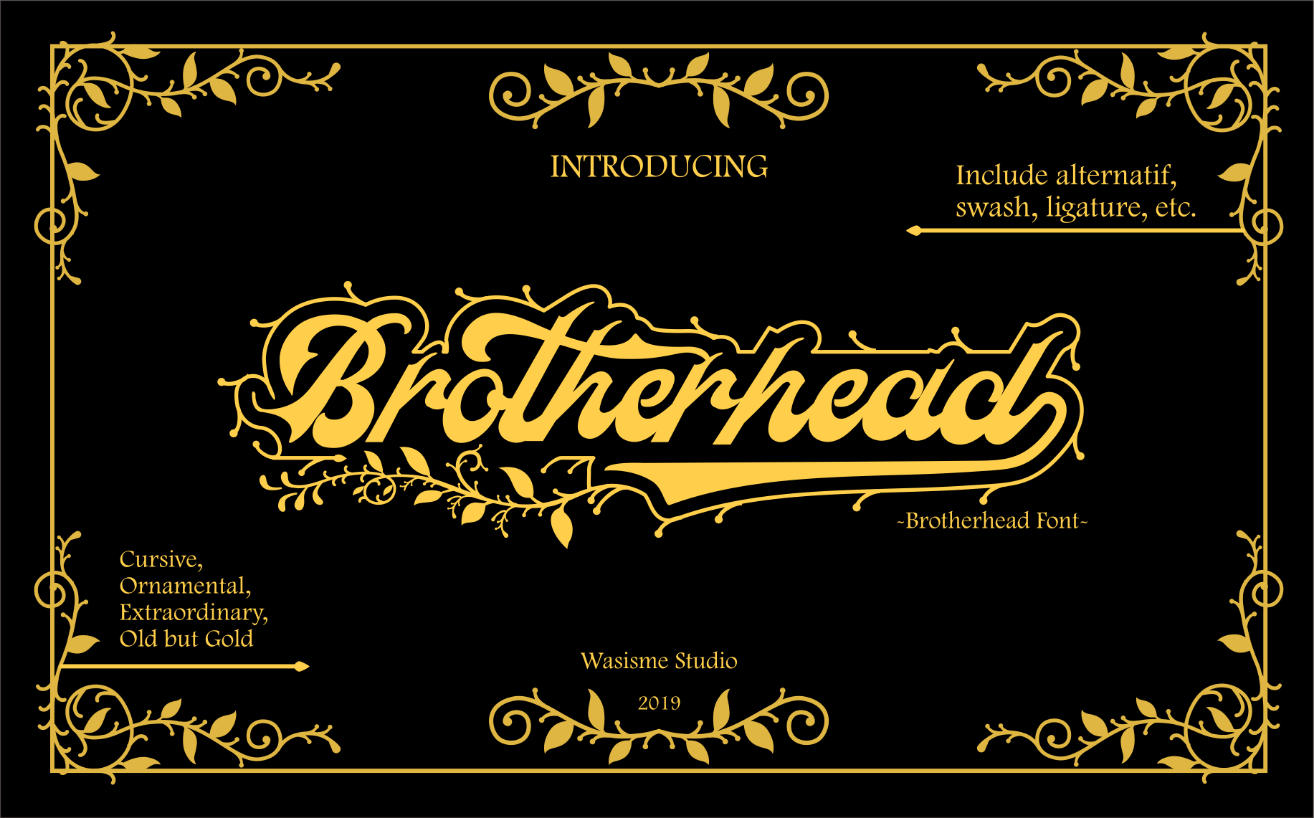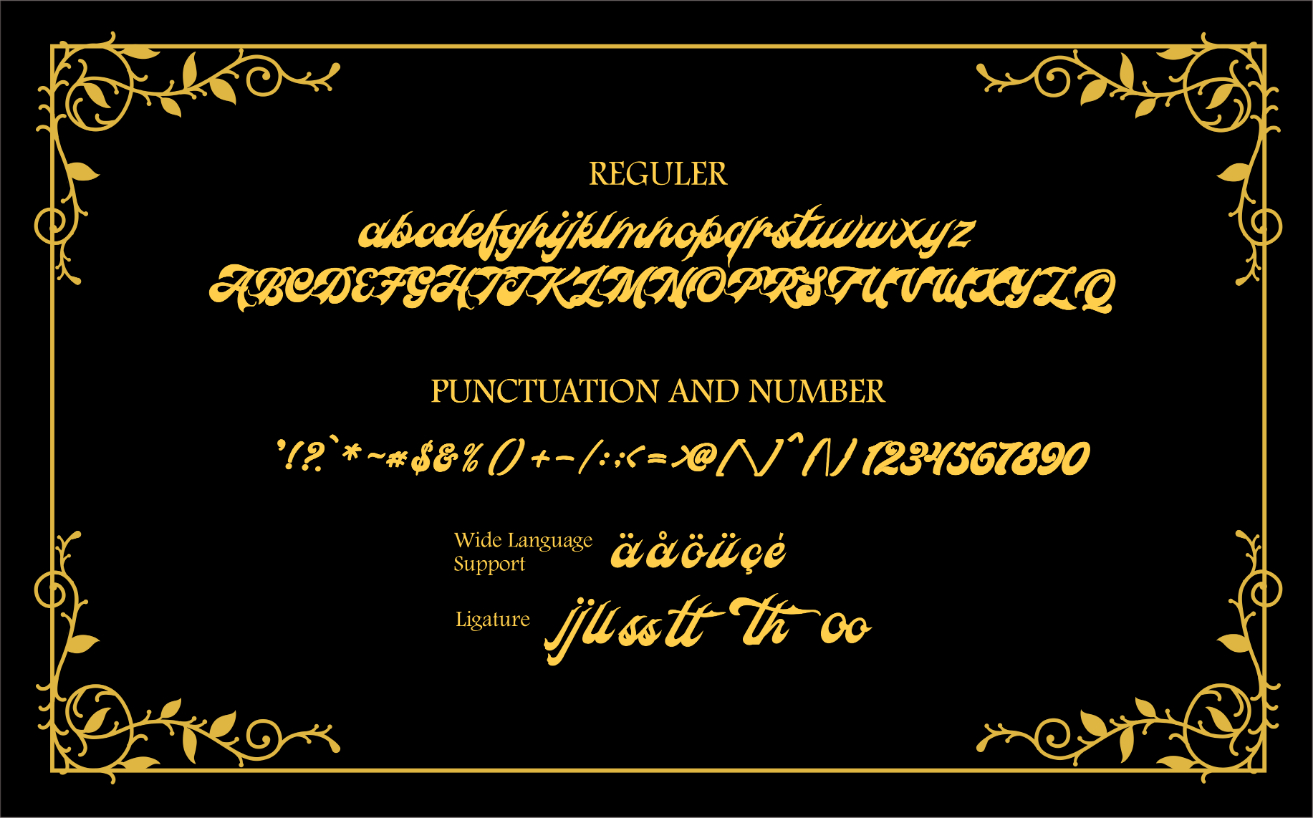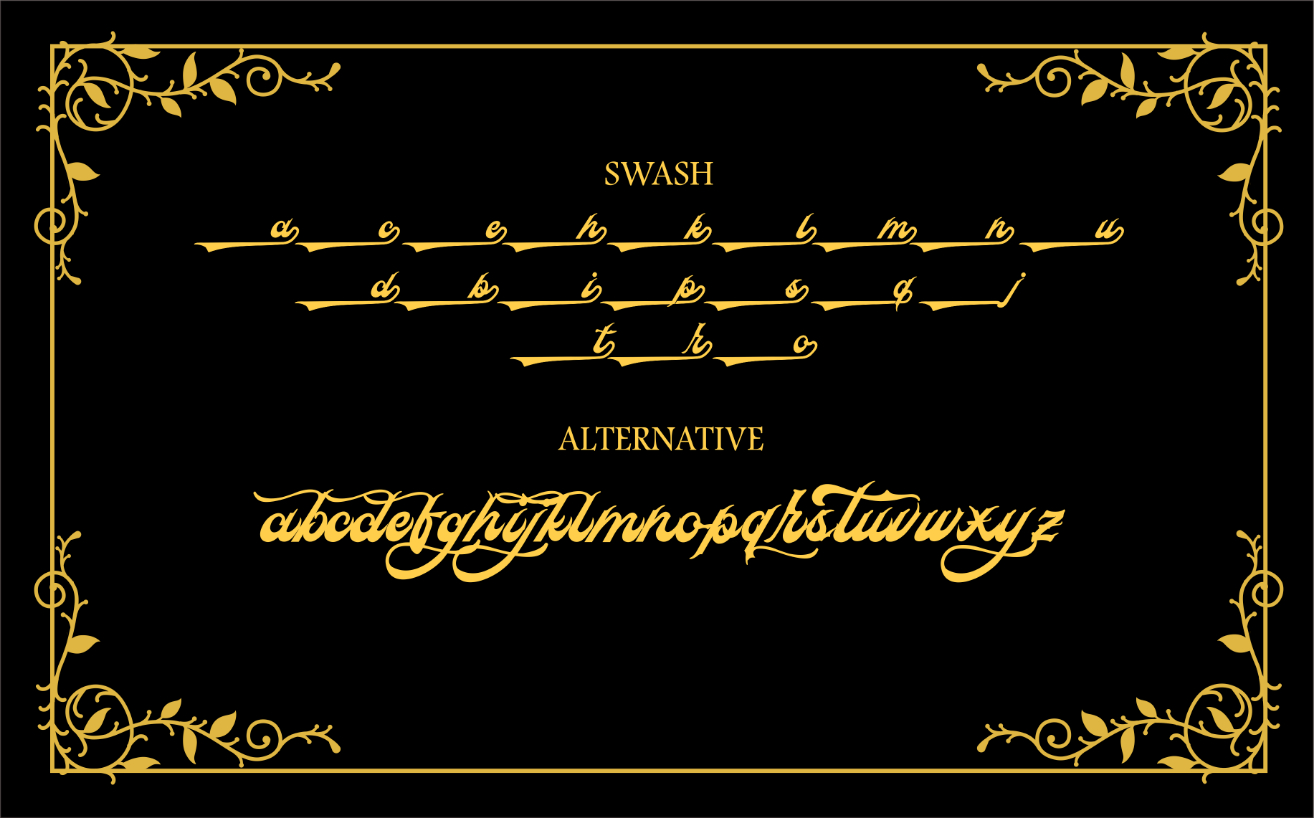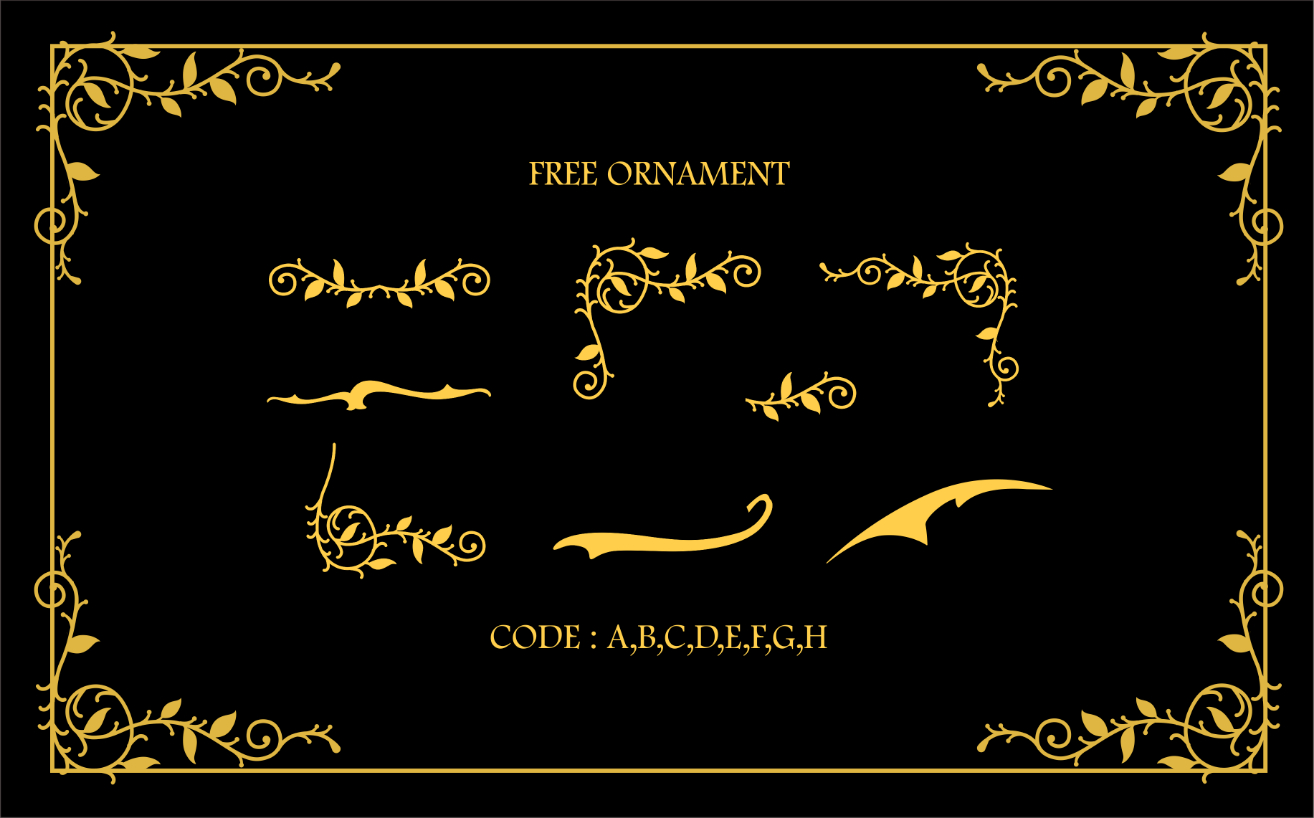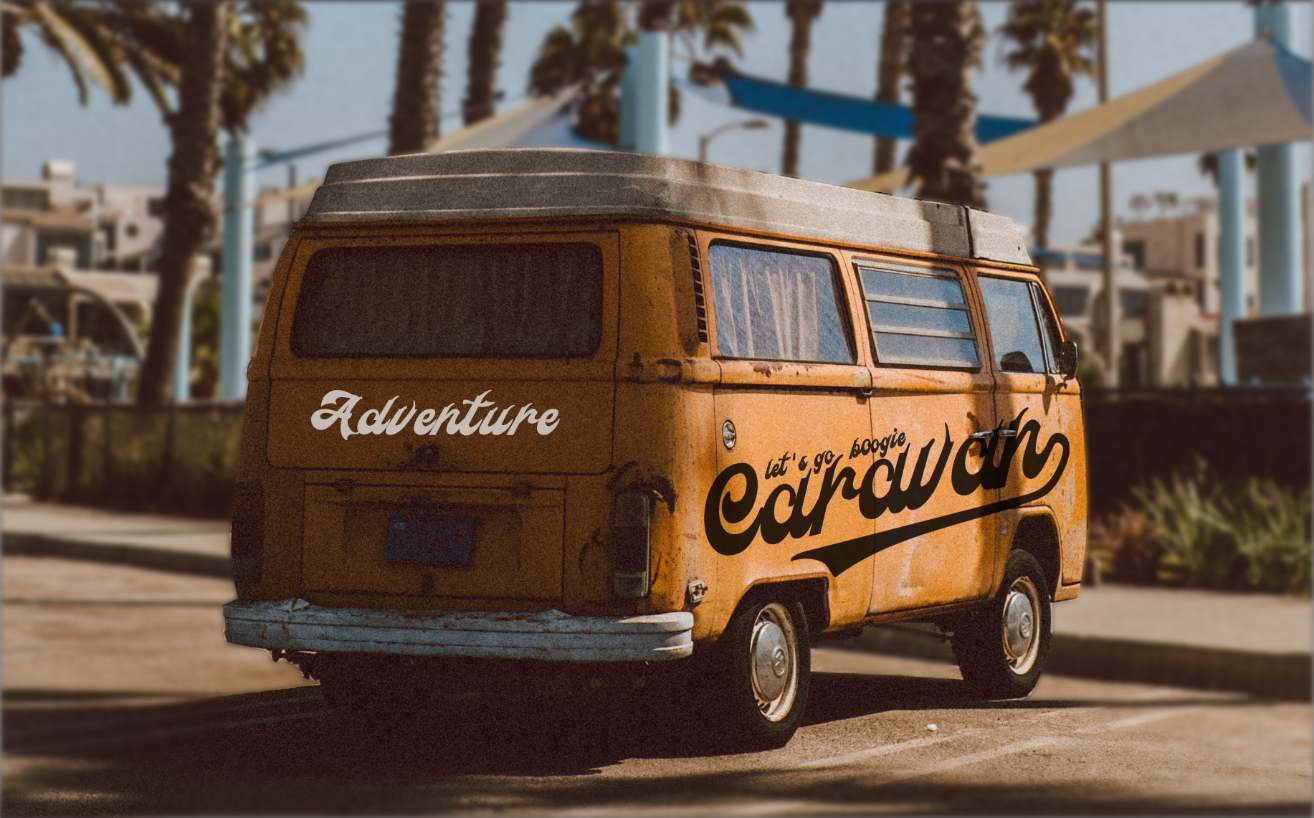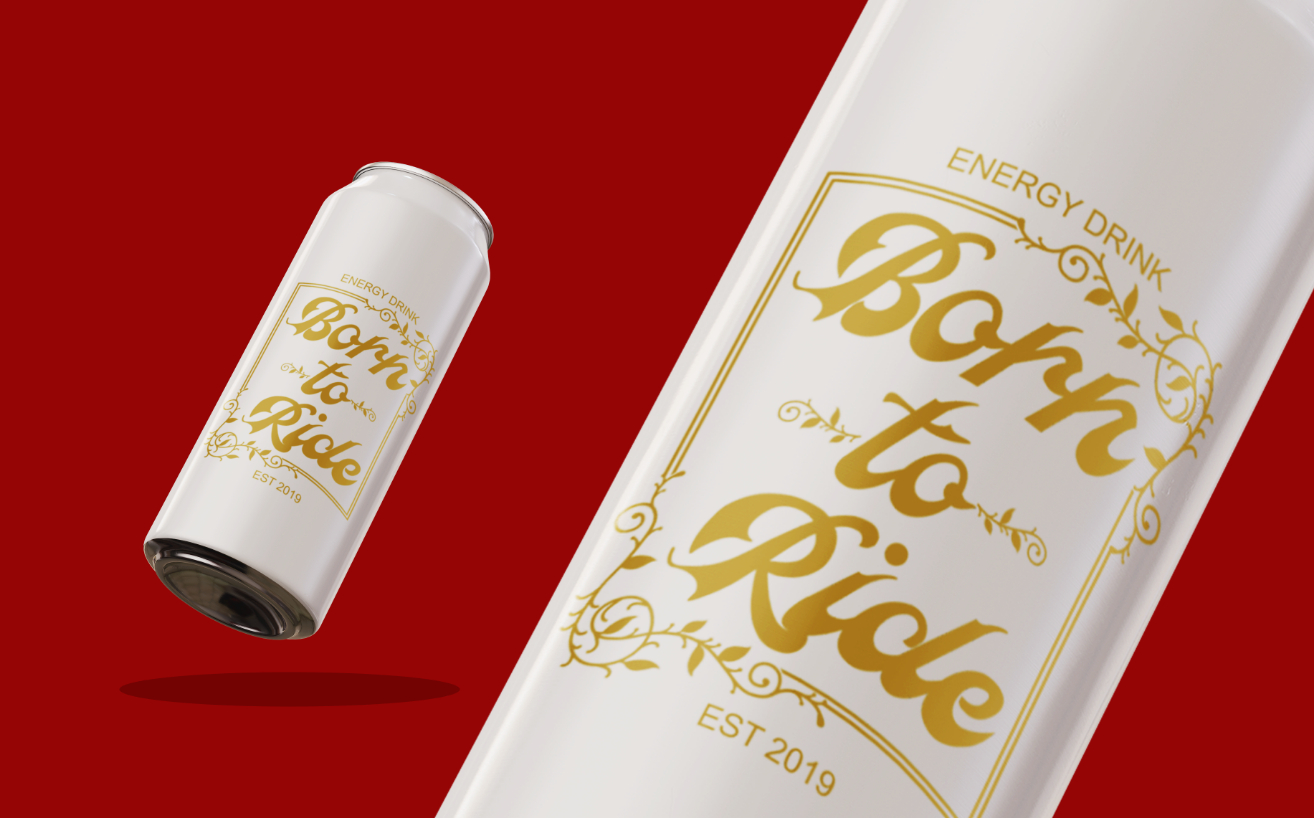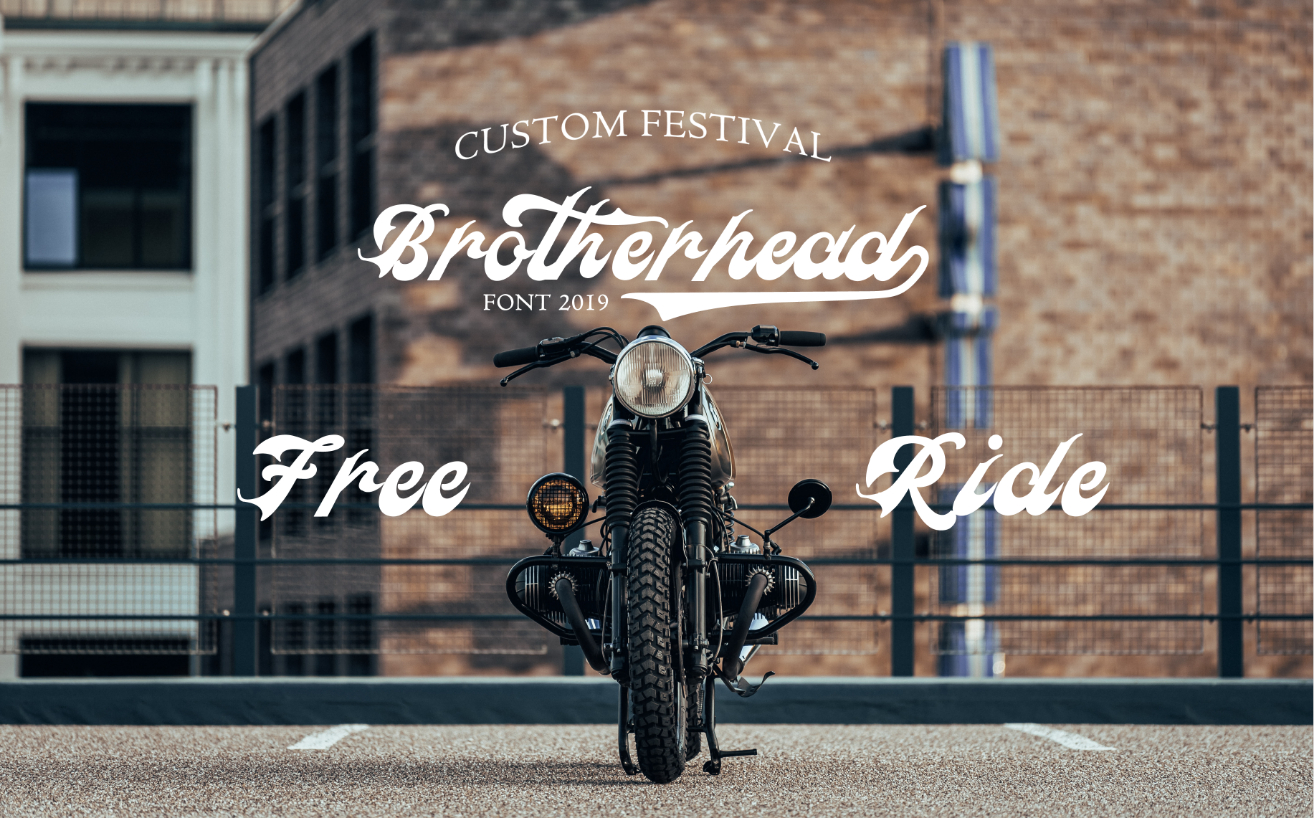
Brotherhead Font
About Brotherhead Font
Brotherhead is a powerful classic font with a retro feel. It includes stunning ornaments, that will turn any design idea into a standout.